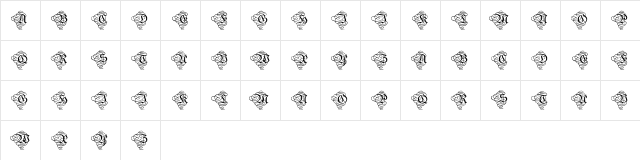
Aristokrat Zierbuchstaben Regular
Design Context for Aristokrat Zierbuchstaben Typeface
Aristokrat Zierbuchstaben is a composed and adaptable typeface that performs quietly and consistently across a wide range of design contexts.